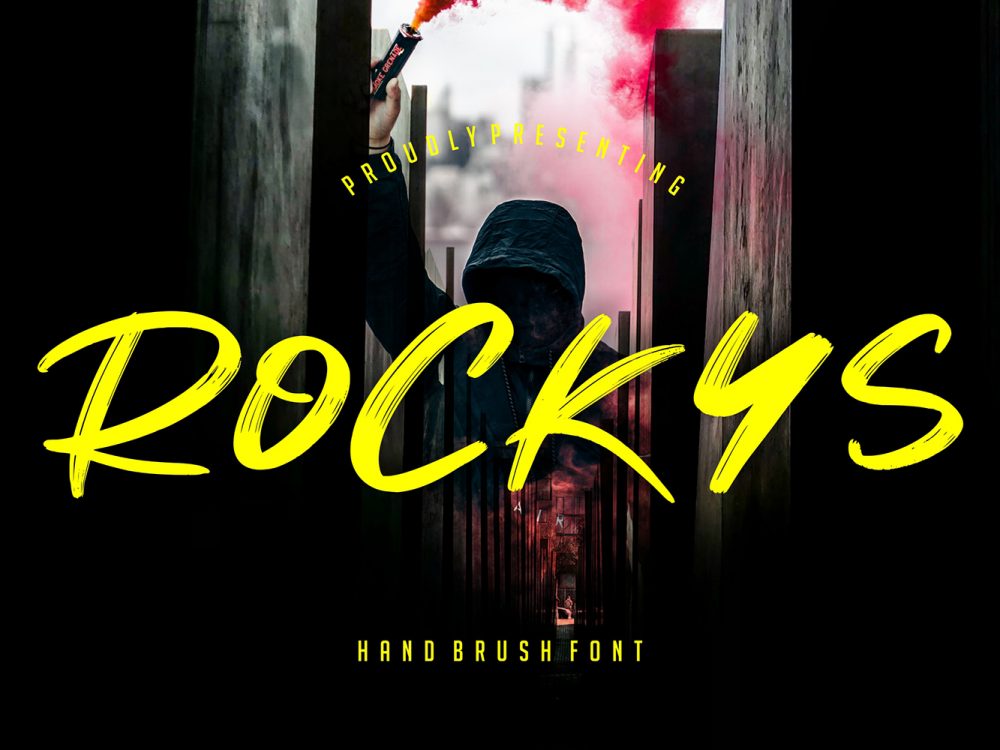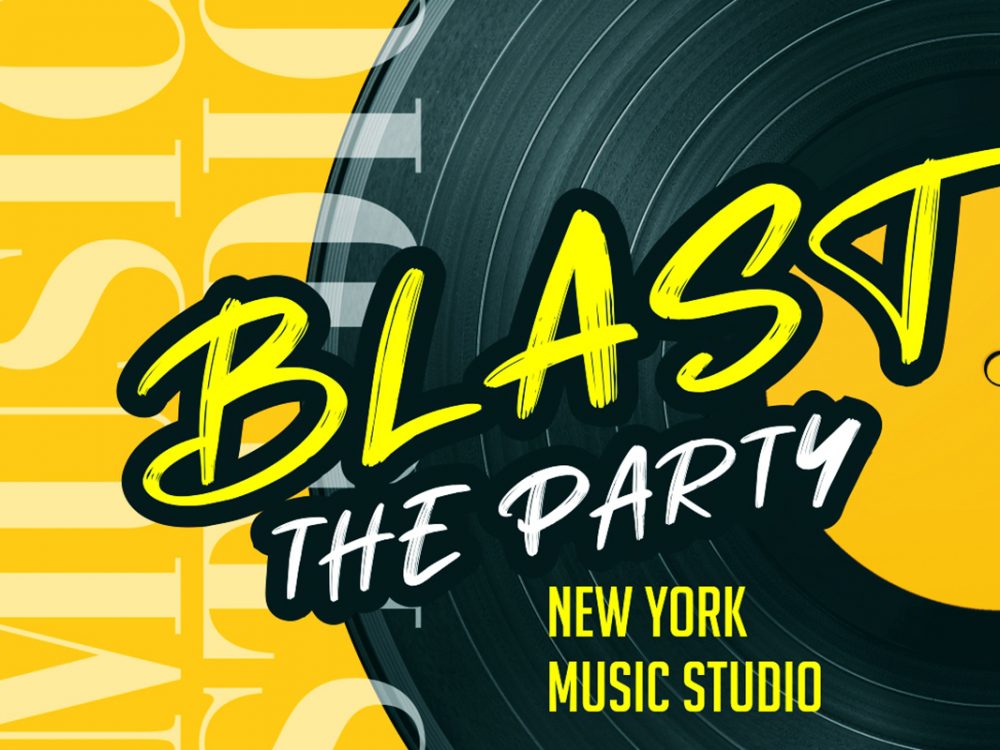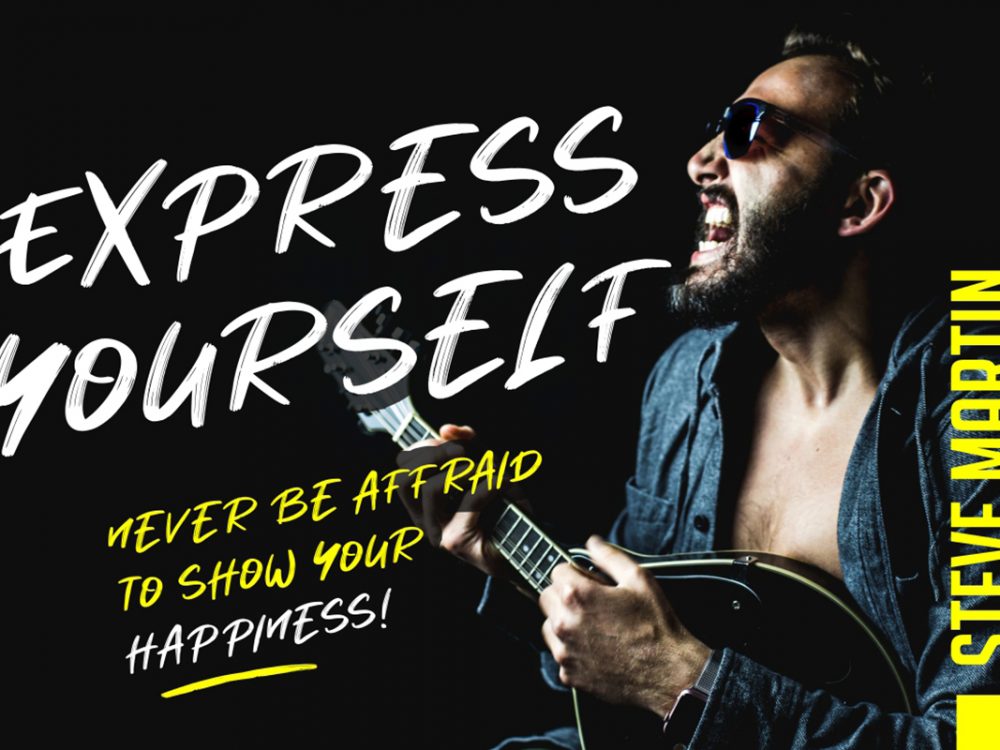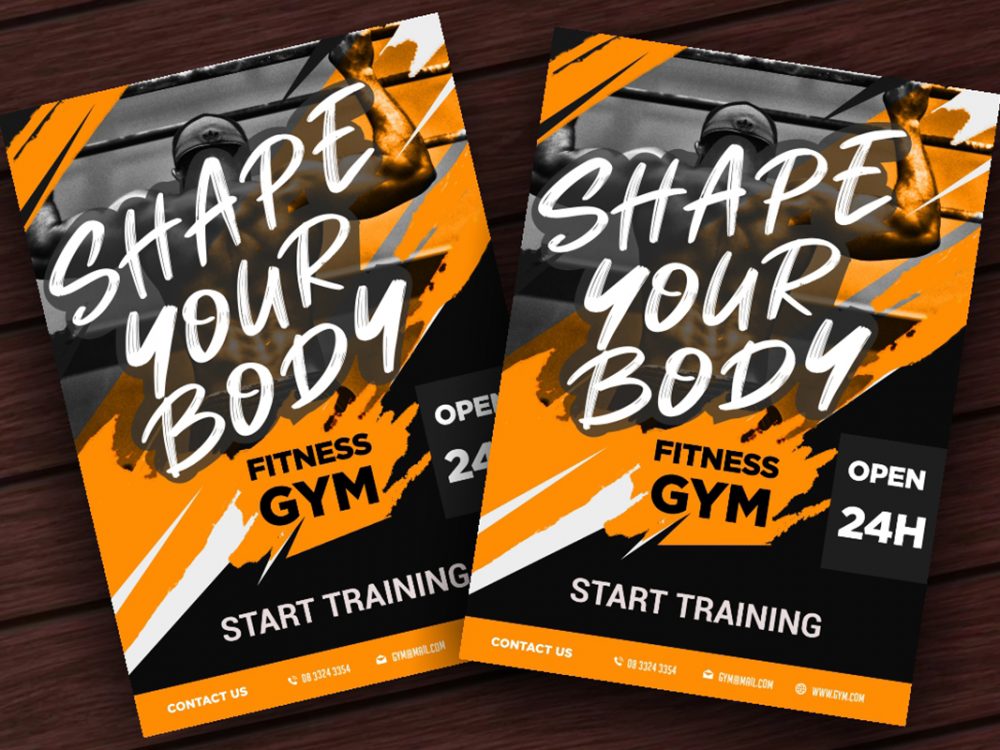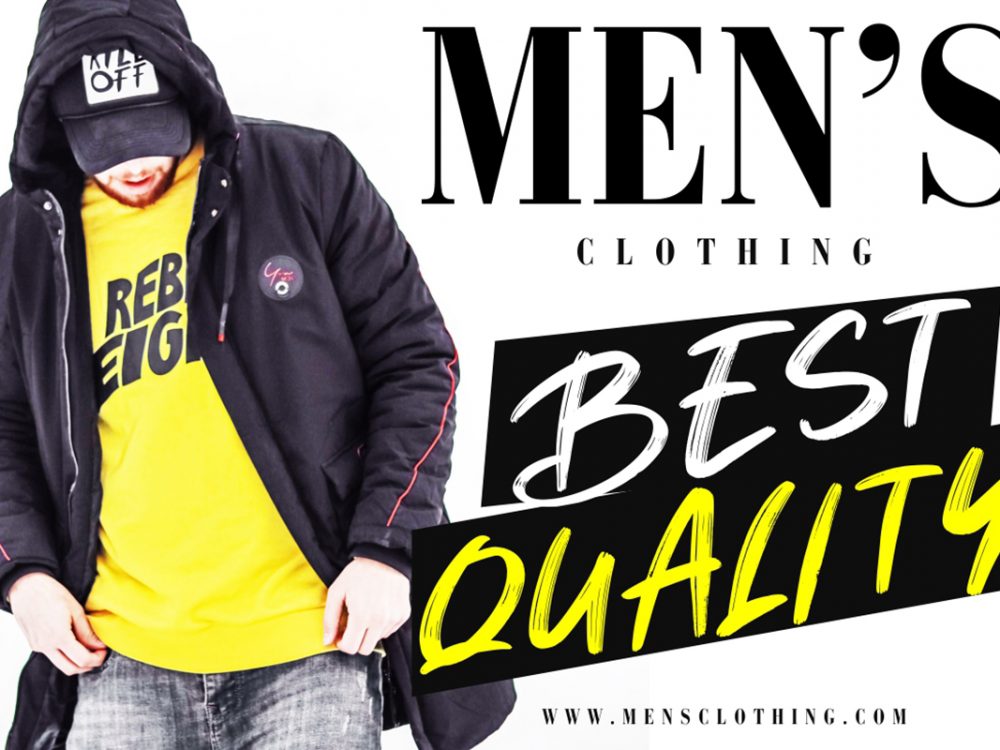
Rockys Free Font
Rockys Free Font is an interesting elegant handwritten typeface that mimics the writing of a brush and sets itself apart from other fonts in a modern style. This font is very well suited for various projects that require a scripted modern curly handwritten font. Use this font to create memorable romantic posters, wedding invitations, greeting cards, branding, flyers, t-shirt and pillow prints, and more. If you like it don’t forget to check out the full version.